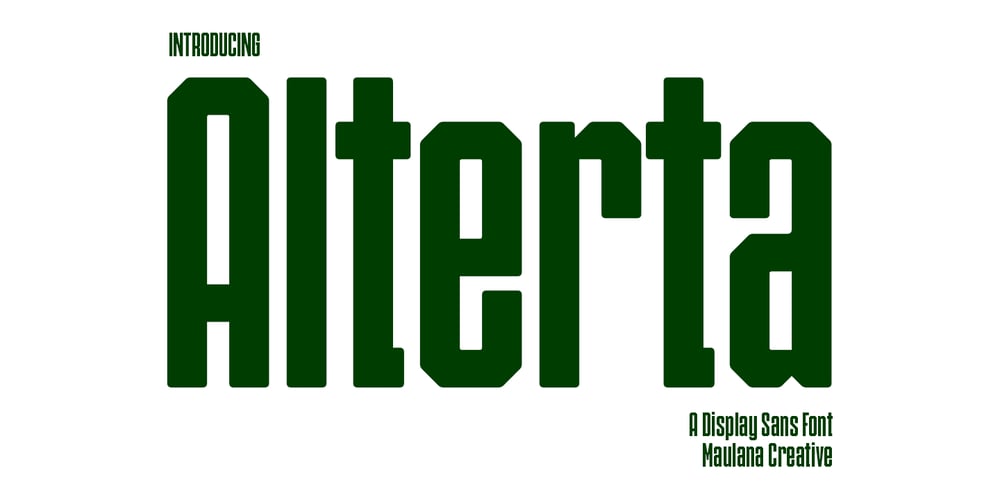
MC Alterta Font Family was designed by Gilang Maulana and published by Maulana Creative. MC Alterta contains 1 styles and family package options. Alterta is a modern fun sans serif Display font. With condensed stroke, fun character with a bit of ligatures and alternates. To give you an extra creative work. Alterta font support multilingual more than 100+ language. This font is good for logo design, Social media, Movie Titles, Books Titles, a short text even a long text letter and good for your secondary text font with script or serif. Make a stunning work with Alterta font. Cheers, Maulana Creative